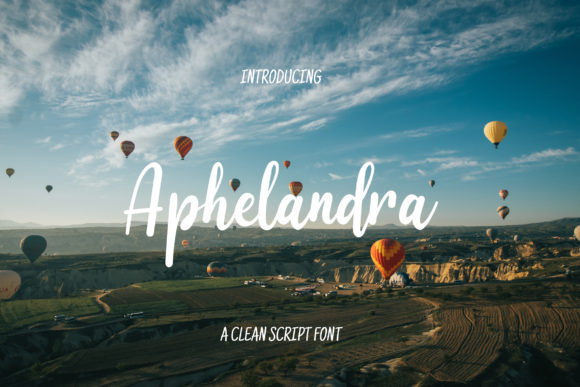
The Aphelandra Font: A Designer’s New Best Friend
I’ll never forget the time I was working on a wedding invitation design project, and I just couldn’t find the perfect font. The client wanted something elegant, yet playful, and I was determined to deliver. That’s when I stumbled upon the Aphelandra font. I was immediately drawn to its unique charm and versatility. In this article, I’ll share my experience with Aphelandra, its features, and how to make the most of it in your designs.
An Honest Review of Aphelandra
So, what makes Aphelandra special? Here are some things I love about this font:
• ✨ Elegant and refined, perfect for formal designs like wedding invitations and greeting cards
• ✅ Highly versatile, works well in various design contexts, from digital to print
• 💕 Crafted with love, and it shows in the attention to detail and care that went into creating it
Of course, no font is perfect, and Aphelandra has a few quirks:
• 🤔 Some users might find the font a bit too ornate for very casual designs
• ⚠️ Limited availability of certain OpenType features in older software
The Story Behind Aphelandra
Aphelandra was crafted with love by a team of designers who wanted to create a font that would inspire creativity and elegance. The font’s name comes from the Aphelandra plant, known for its beautiful and intricate flowers. The designers aimed to capture the essence of this plant in their font, with its unique blend of refinement and playfulness.
What is Aphelandra best used for? Aphelandra is perfect for formal designs, such as wedding invitations, greeting cards, and certificates.
Is Aphelandra suitable for digital use? Yes, Aphelandra works well in digital designs, such as social media graphics, email newsletters, and website headers.
Does Aphelandra support OpenType features? Yes, Aphelandra supports OpenType features, such as stylistic alternates and glyphs, which can add more personality to your designs.